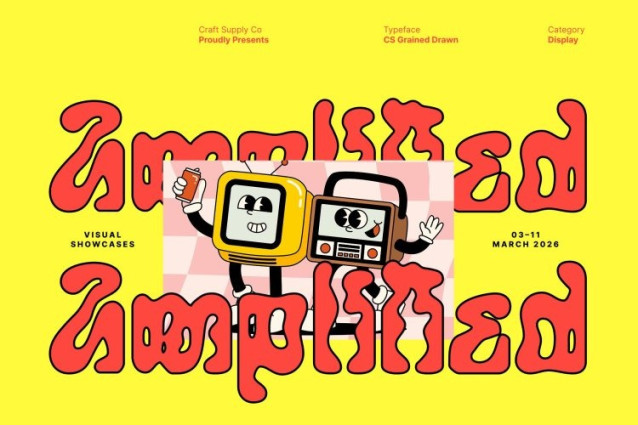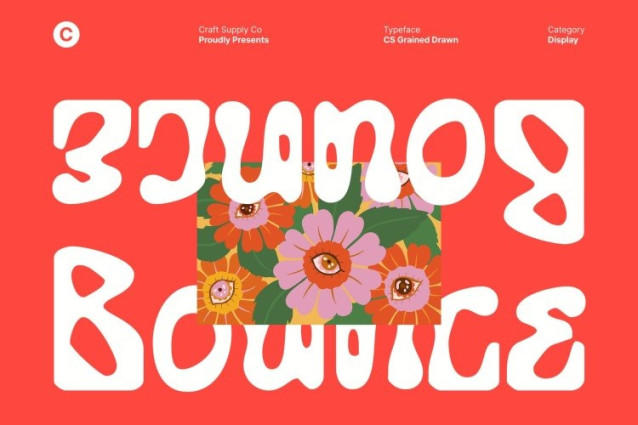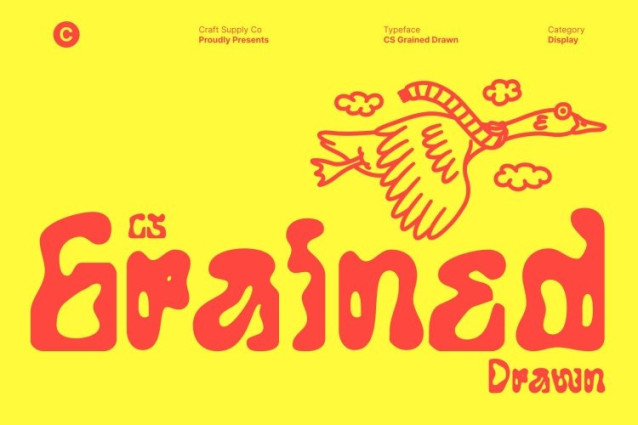
CS Grained Drawn Font
CS Grained Drawn Font This font brings a bold wave of creativity with its curving, experimental sans serif shapes. Designed to capture the free flowing spirit of psychedelic design, this font radiates movement, rhythm, and vibrant personality. Every letter bends and sways with intentional irregularity, giving your compositions an instantly funky, energetic mood perfect for artistic expression.
Drawn Texture That Adds Life, Energy, and Handmade Character
Enhanced with a dynamic drawn texture, feels alive and expressive. The hand-rendered detailing introduces organic imperfections that breathe warmth and motion into each form. This texture amplifies the psychedelic aesthetic, giving the font a raw, tactile charm that feels both modern and handcrafted.
Perfect for Music Posters, Creative Branding, and Visual Art
This font thrives in vibrant, experimental environments. Use it for music posters, album artwork, creative branding, visual art projects, festival graphics, or any design that celebrates imagination and bold individuality.
A Typeface That Radiates Fun, Rhythm, and Imagination
This isn’t just a font it’s a burst of visual rhythm. It channels the playful spontaneity of retro psychedelia and blends it with modern artistic flair. From expressive layouts to bold headlines, this typeface empowers designers to break rules, explore new forms, and craft unforgettable visuals.